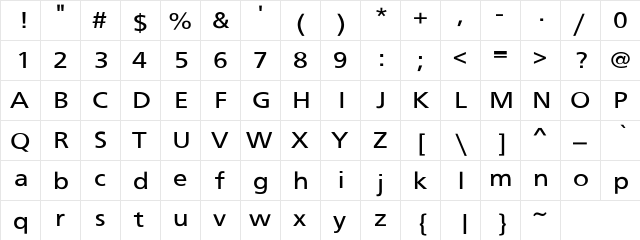
BudboyerExt-Nor Regular Font Preview
BudboyerExt-Nor Regular
BudboyerExt-Nor Regular Font Details
Design Context for BudboyerExt-Nor Typeface
BudboyerExt-Nor takes a measured approach to typography — its balanced proportions and neutral character make it a reliable workhorse for both digital and print work.
Pro Tip: Pair BudboyerExt-Nor with a font of contrasting weight or personality to build a more expressive typographic hierarchy.